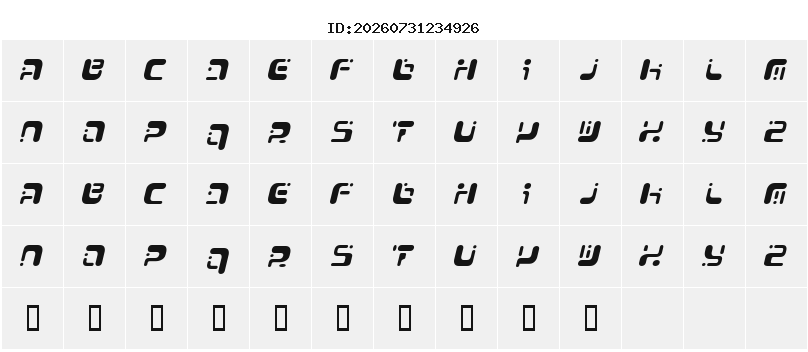
About Lastu # 1.ttf
Lastu # 1.ttf is a modern, elegant sans-serif font designed for ultimate readability and visual harmony. Perfect for branding, headlines, web design, and print materials.